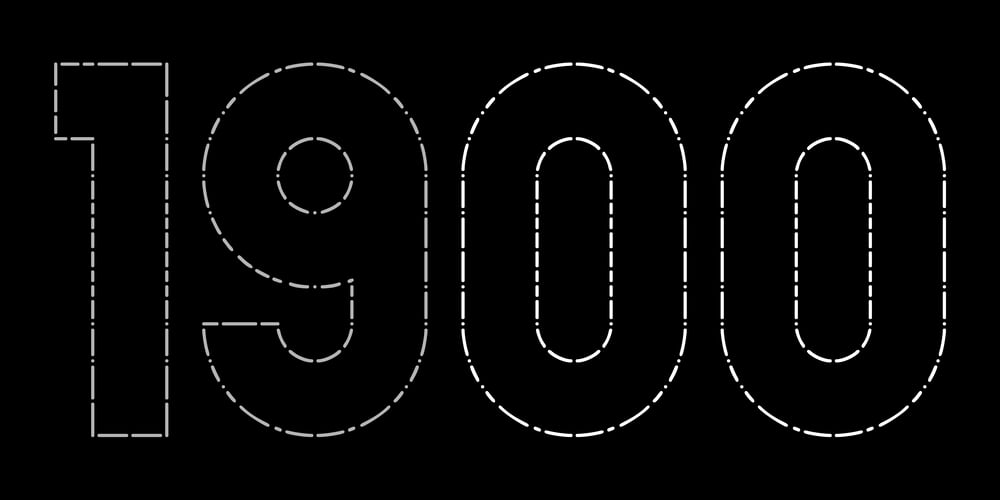
PDU Outline
PDU Outline font
PDU Outline Font Family was designed by Dries Wiewauters and published by Studio Dries Wiewauters. PDU Outline contains 1 styles and family package options. Initiated as a project at Werkplaats Typographie, Dries Wiewauters. began exploring a stencil based system originally designed by Joseph A. David. In 1876, David acquired the patent for a universal stenciling device system that he had invented for sign-writers, whereby all UPPERCASE, lowercase, numbers, punctuation, accents etc. could be sourced from the grid of the stencil. Dries used this stencil, named the Plaque Découpée Universelle (PDU), to begin an exploration into the liberties and restrictions of a unified grid.PDU is the culmination of that effort. The font itself has three cuts: Regular, a filled version of the stencil; Outline, a cut staying true to the hand rendering of the stencil; and Stencil. Alongside these cuts are corresponding pattern cuts. PDU boasts a glyph count of 1,578 for each cut, alongside 229 glyphs included in the patterns. The corresponding pattern cut is provided free with the purchased regular and outline cuts of PDU.